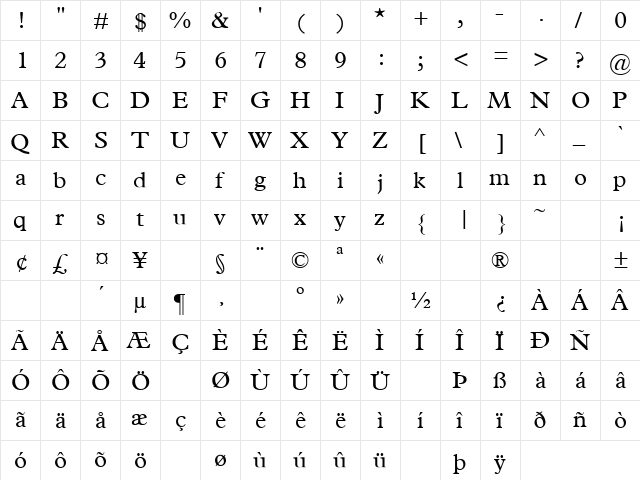
Back In The Saddle 2 Regular
Design Context for Back In The Saddle 2 Typeface
Back In The Saddle 2 offers clean, dependable letterforms without strong stylistic allegiance, making it a practical choice for designers who need flexibility.
Pro Tip: Use Back In The Saddle 2 in both headline and body roles to test its range before committing to a single application.